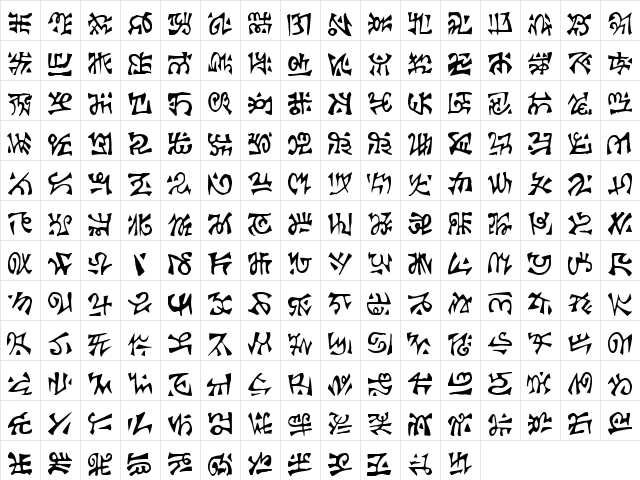
Glyphis1 Regular
Design Context for Glyphis1 Typeface
Glyphis1 is a composed and adaptable typeface that performs quietly and consistently across a wide range of design contexts.